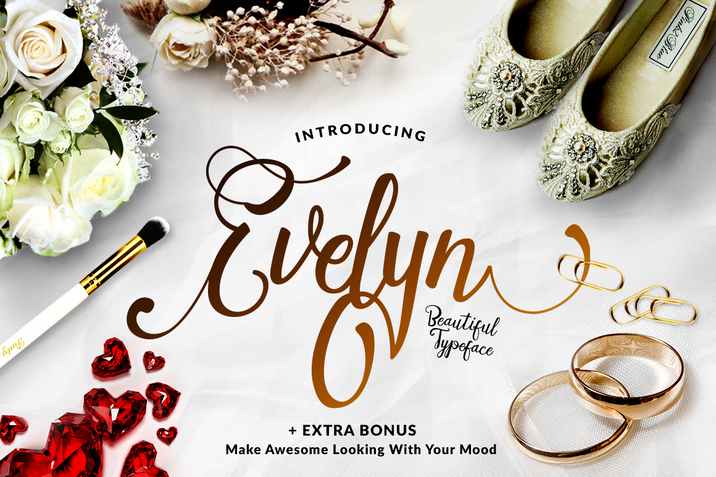
Evelyn
Evelyn Font Family
Evelyn is elegant and another lovely modern calligraphy typefaces, which is combining the style of classic calligraphy with an modern style include in Evelyn 392 Glyphs.
Feel free to explore your imaginations. Can be used for various purposes, such as greeting card, editorial, branding, wedding invitation, quotes etc.